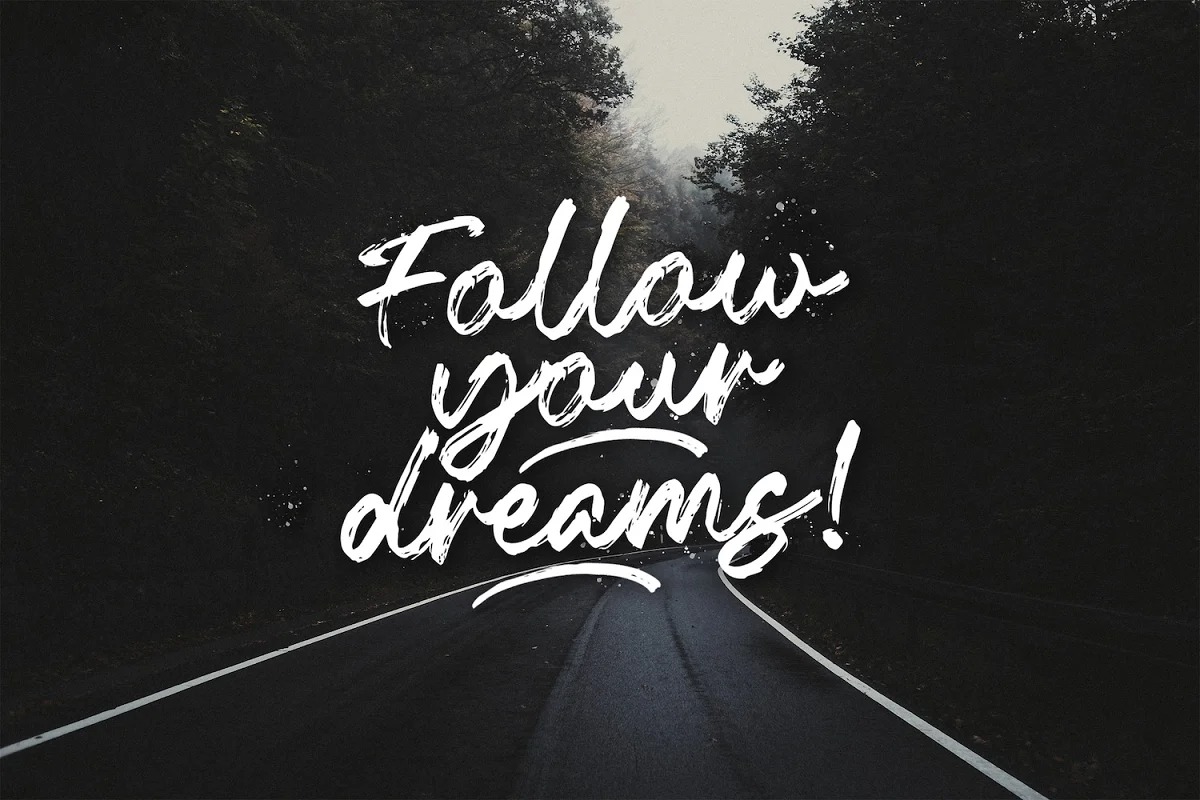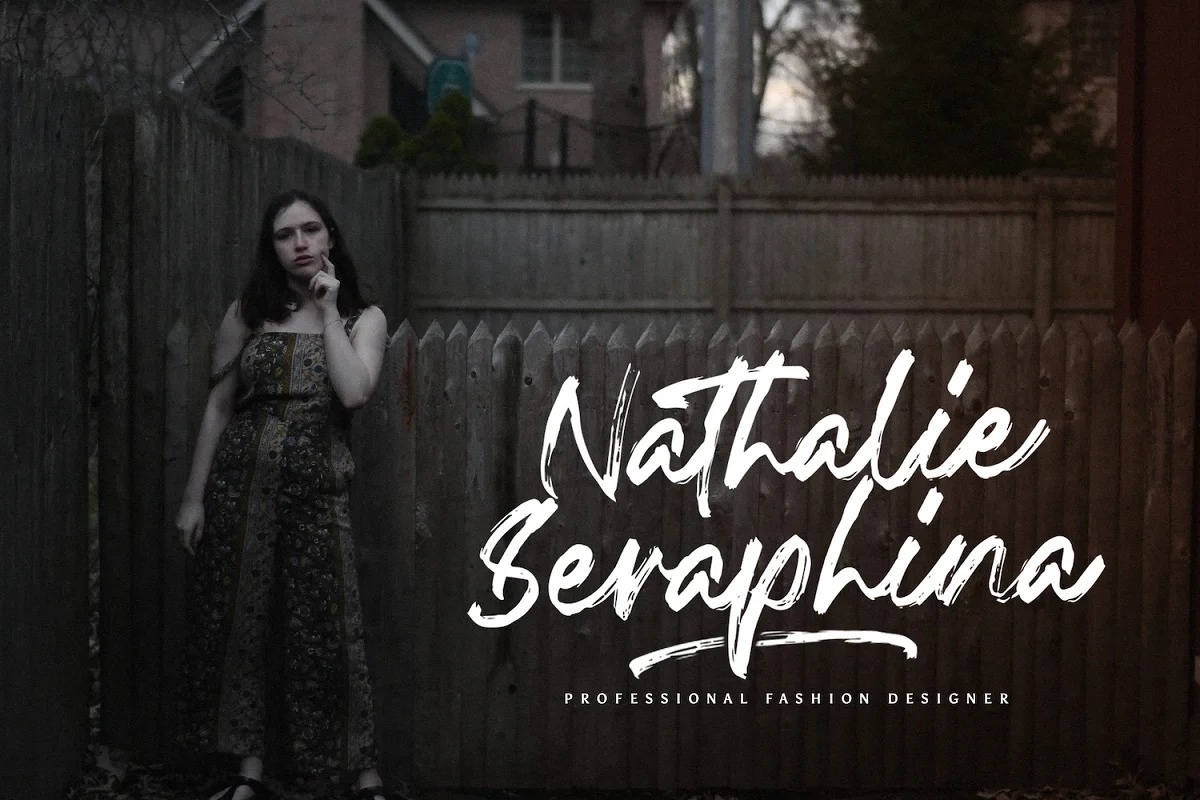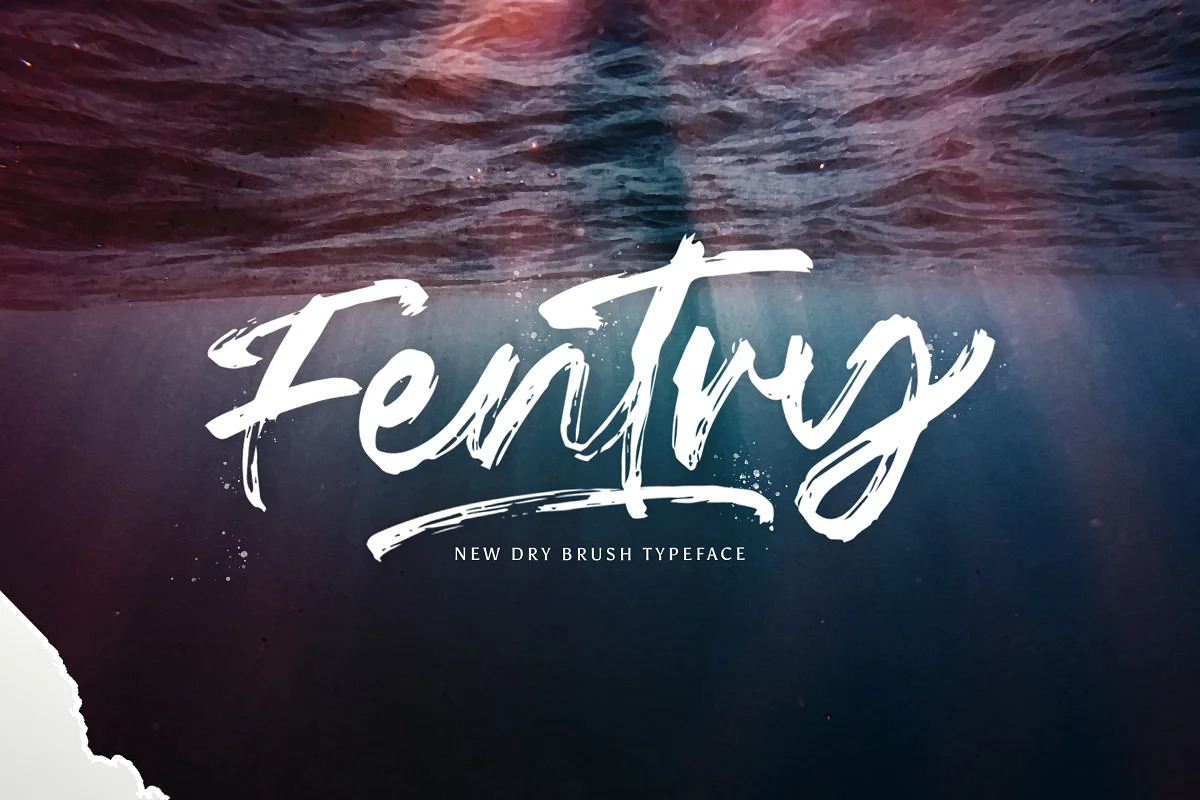
Fentry Brush Font
This font designed by StringLabs is new hand-drawn brush typeface can be used for various purposes such as headings, logos, invitations, t-shirt designs, greeting cards, posters, labels, book covers, brochures, and much more. It will give your design a fantastic and unique feeling.